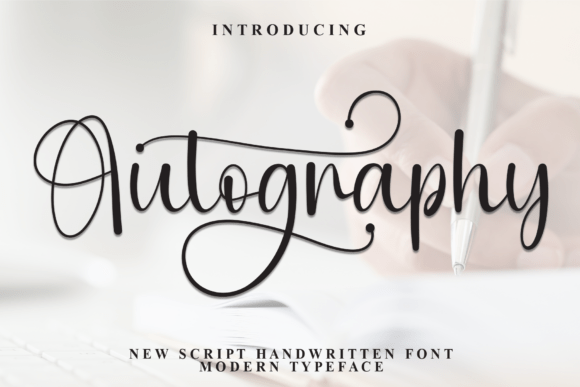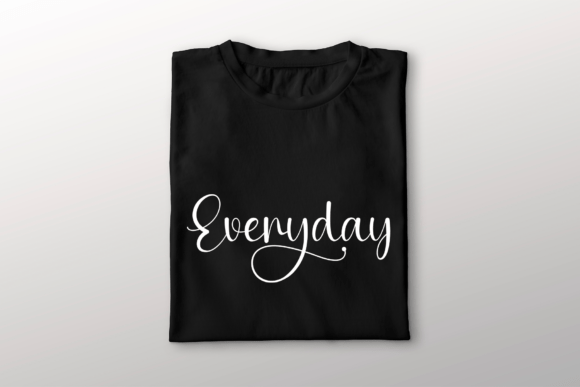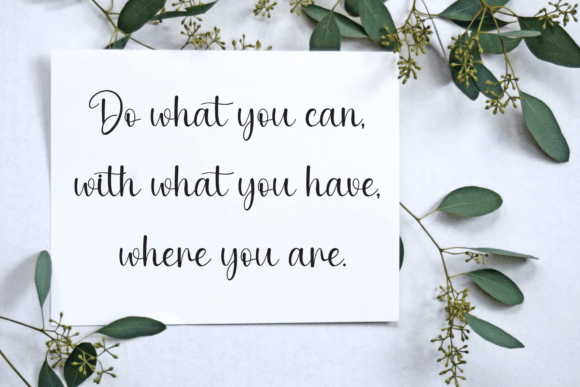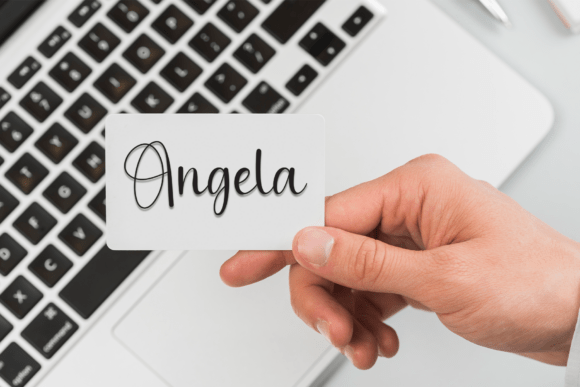
Autography Font: Elegant Script for Wedding Invitations & Branding
About the Autography Font
Explore the possibilities with Autography Font, a font that offers both beauty and functionality. Elegant and expressive, this script font flows with effortless beauty. Featuring graceful curves and smooth connections, it’s ideal for adding a sophisticated, handwritten feel to wedding invitations, logos, branding projects, and social media graphics. Whether you’re designing something romantic or refined, this script font brings a timeless charm to any design.
Autography excels in applications requiring a touch of refined elegance, such as wedding stationery, logos, and short-form marketing materials. Its graceful curves work particularly well for headlines, short quotes, and signature elements. However, its script nature makes it unsuitable for body text or extended paragraphs; readability suffers at smaller sizes.
For optimal visual balance, pair Autography with a clean sans-serif like Lato for a modern feel, or a classic serif like Garamond for a more traditional aesthetic. A geometric sans-serif such as Montserrat could also provide a striking contrast. Avoid pairing it with other script fonts, as this might create visual clutter.
Autography projects an air of sophisticated charm and timeless elegance. It’s best suited for brands that aim for a luxurious, romantic, or high-end image. This font’s refined personality makes it less effective for projects requiring a bold, playful, or informal tone.
Autography Font Usage Examples
Autography Font Example